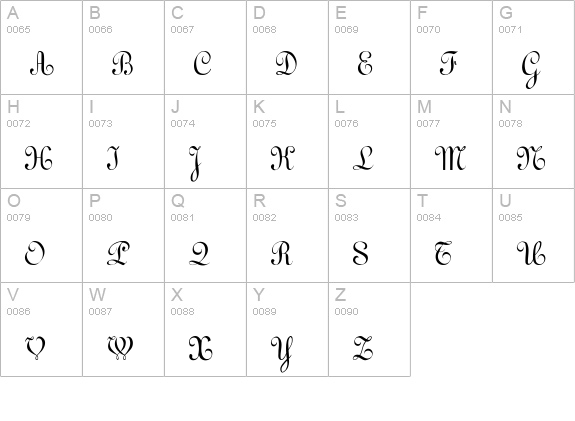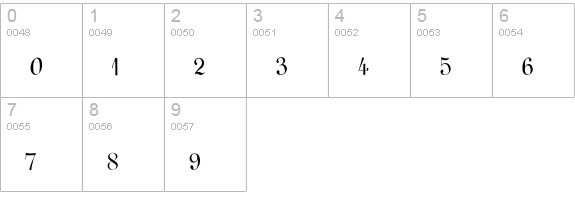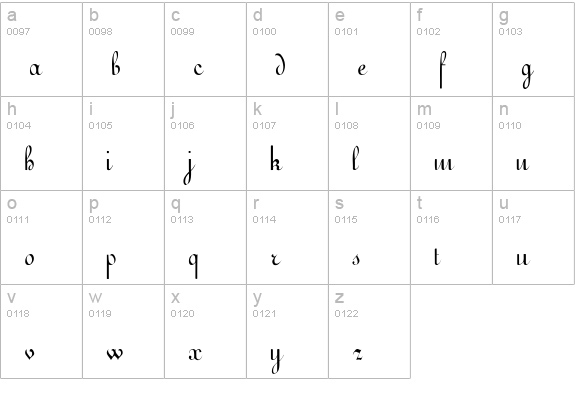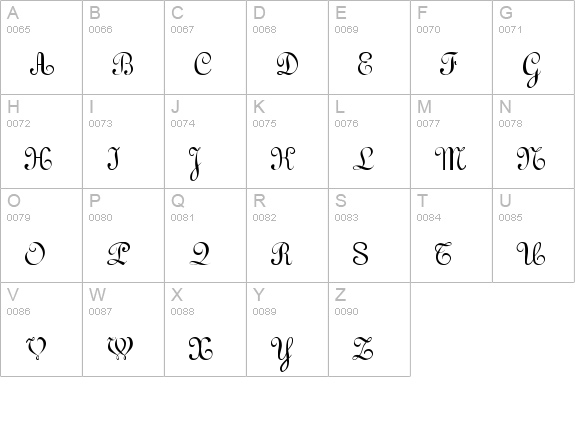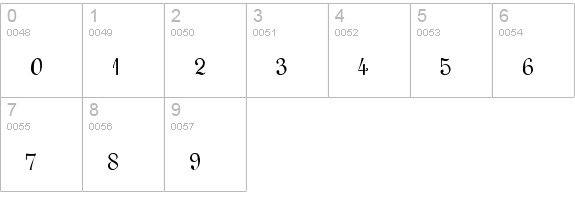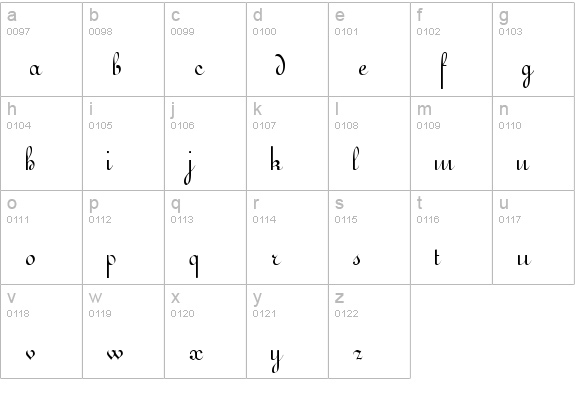
GesseleScript Font Details
GesseleScript is a stunning and elegant font that exudes sophistication and charm. With its delicate and flowing cursive style, this font is perfect for adding a touch of beauty to your projects. Whether you are creating invitations, greeting cards, or elegant branding materials, GesseleScript will surely elevate your designs to the next level. The best part about GesseleScript font is that it is completely free to download at FontsMarket.com. This means that you can access this gorgeous font without any cost, making it a valuable addition to your font collection. Don't miss out on the opportunity to enhance your creative projects with the timeless beauty of GesseleScript font. Download it today and let your creativity shine!